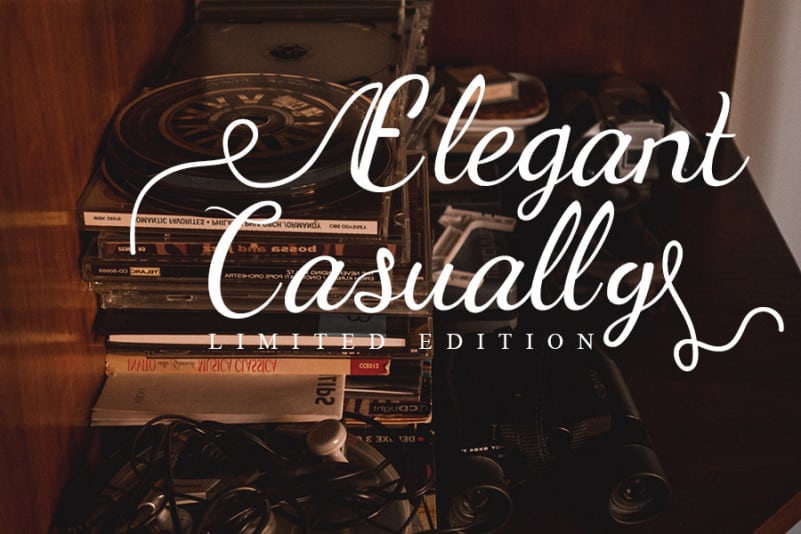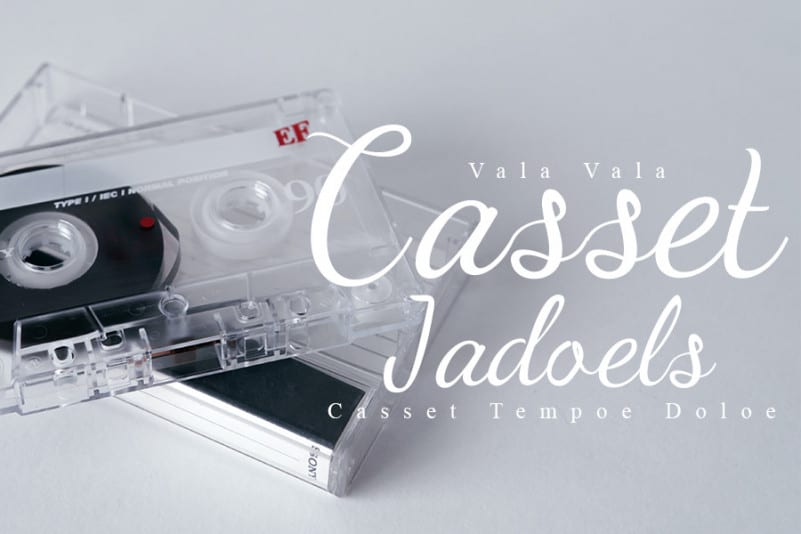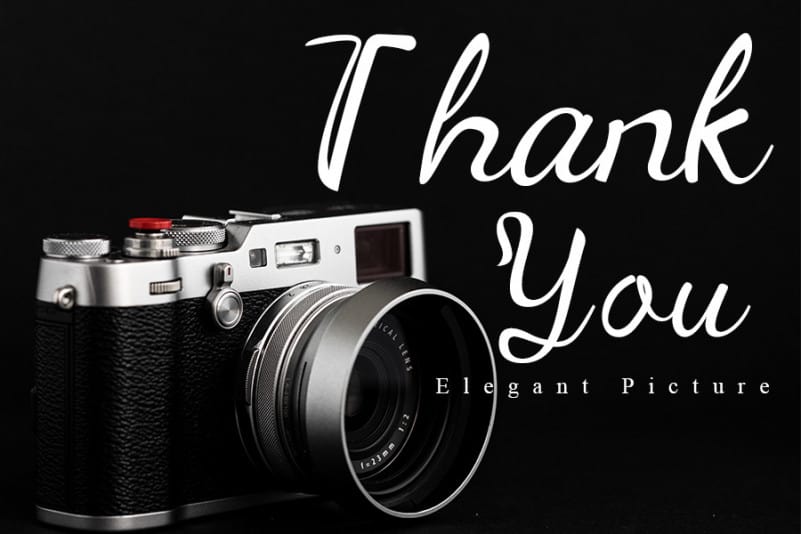
Home Schooling Calligraphy Font
Home Schooling Calligraphy Font is a great. It maintains its classy calligraphic influences while feeling contemporary and fresh. This versatility will appeal to a wide range of crafty ideas, from letterheads and titles to stationery.